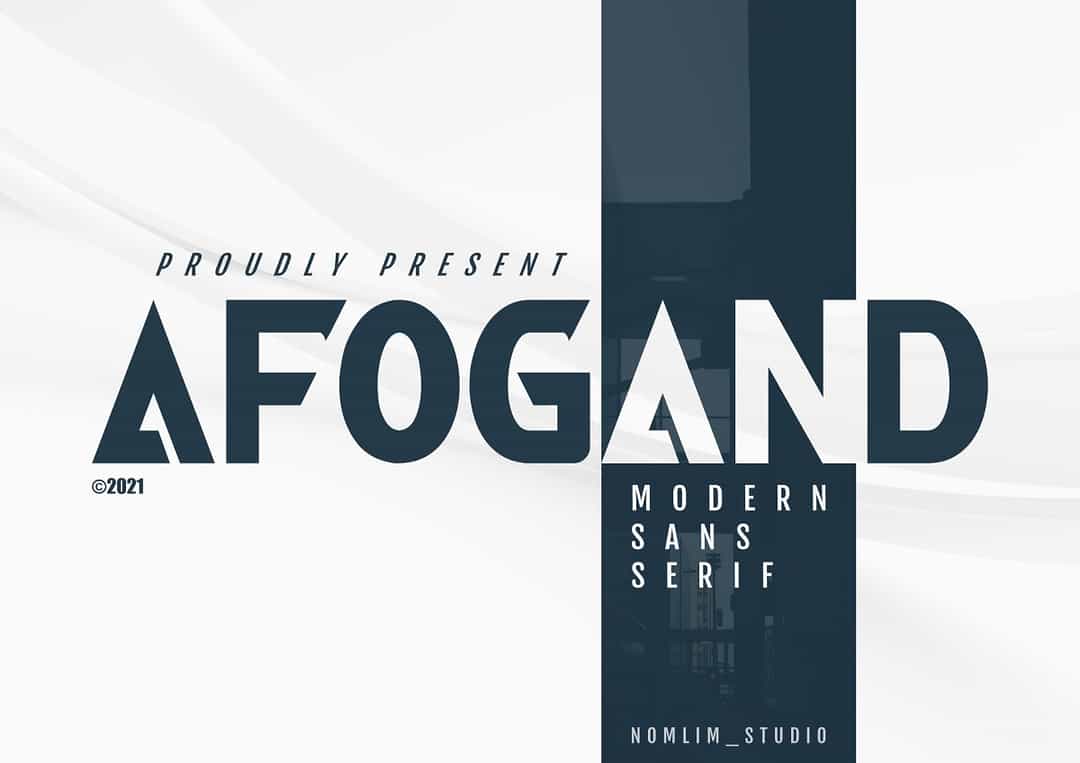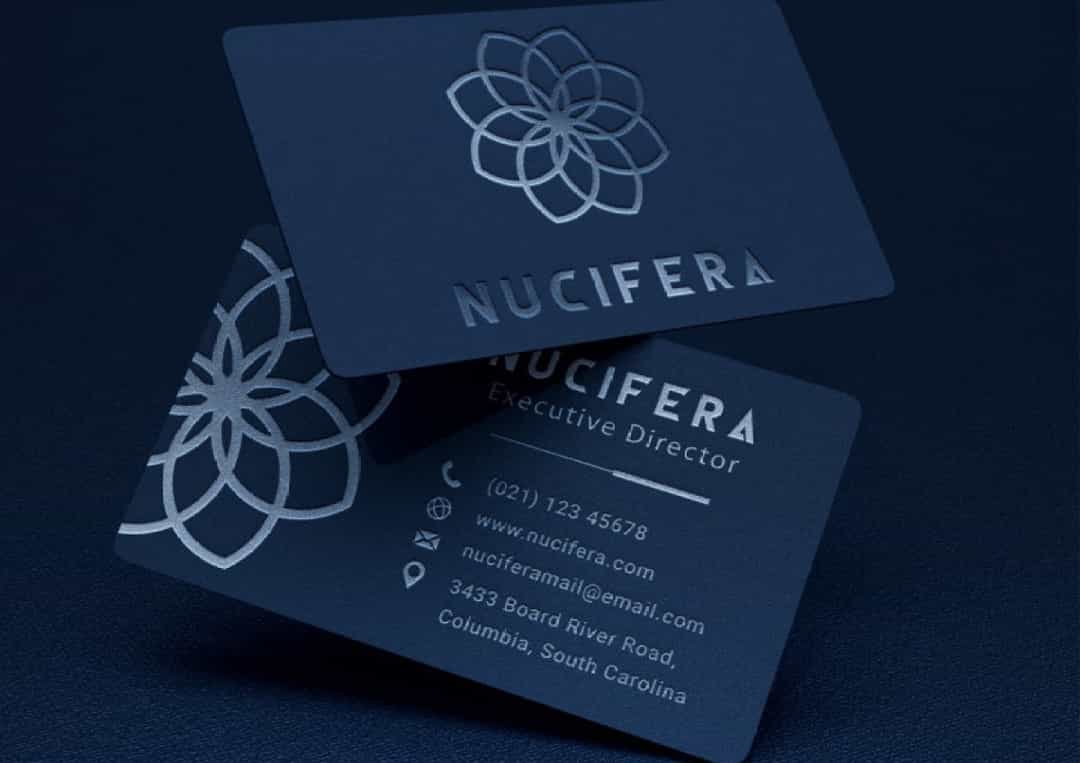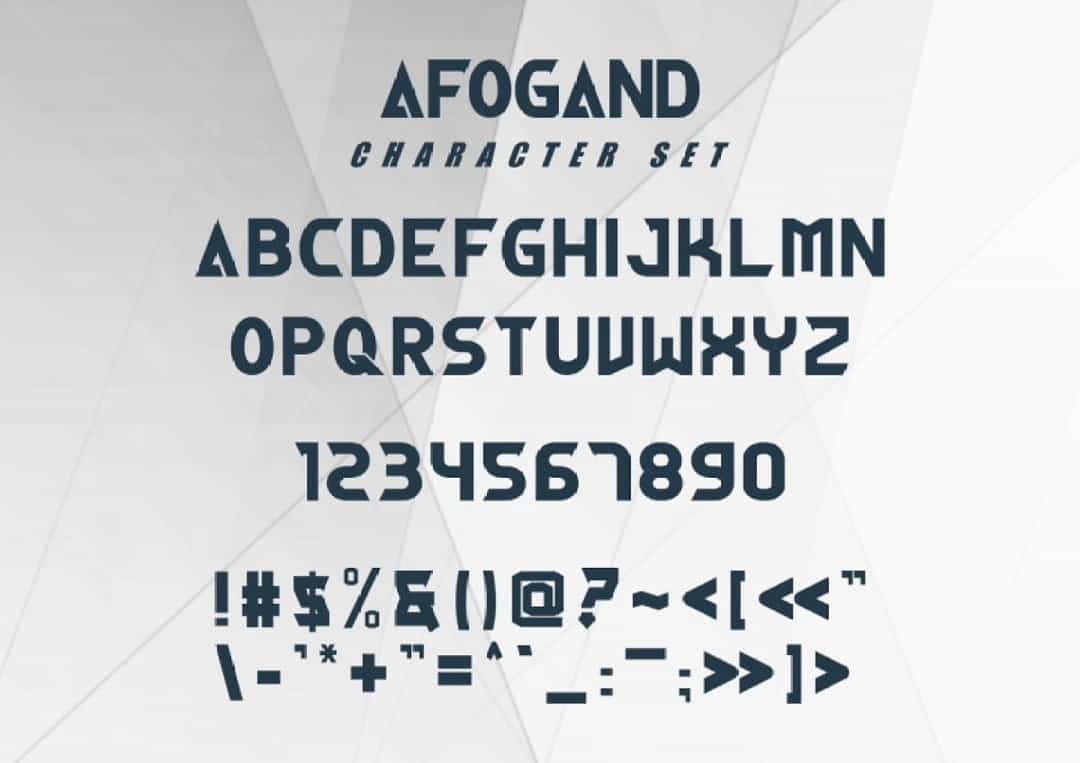
Afogan is an eye-catching sans serif typeface designed to blend seamlessly into a range of applications. Incorporate it into your creative ideas and see it take them to new heights while engaging audiences and leaving lasting impressions.